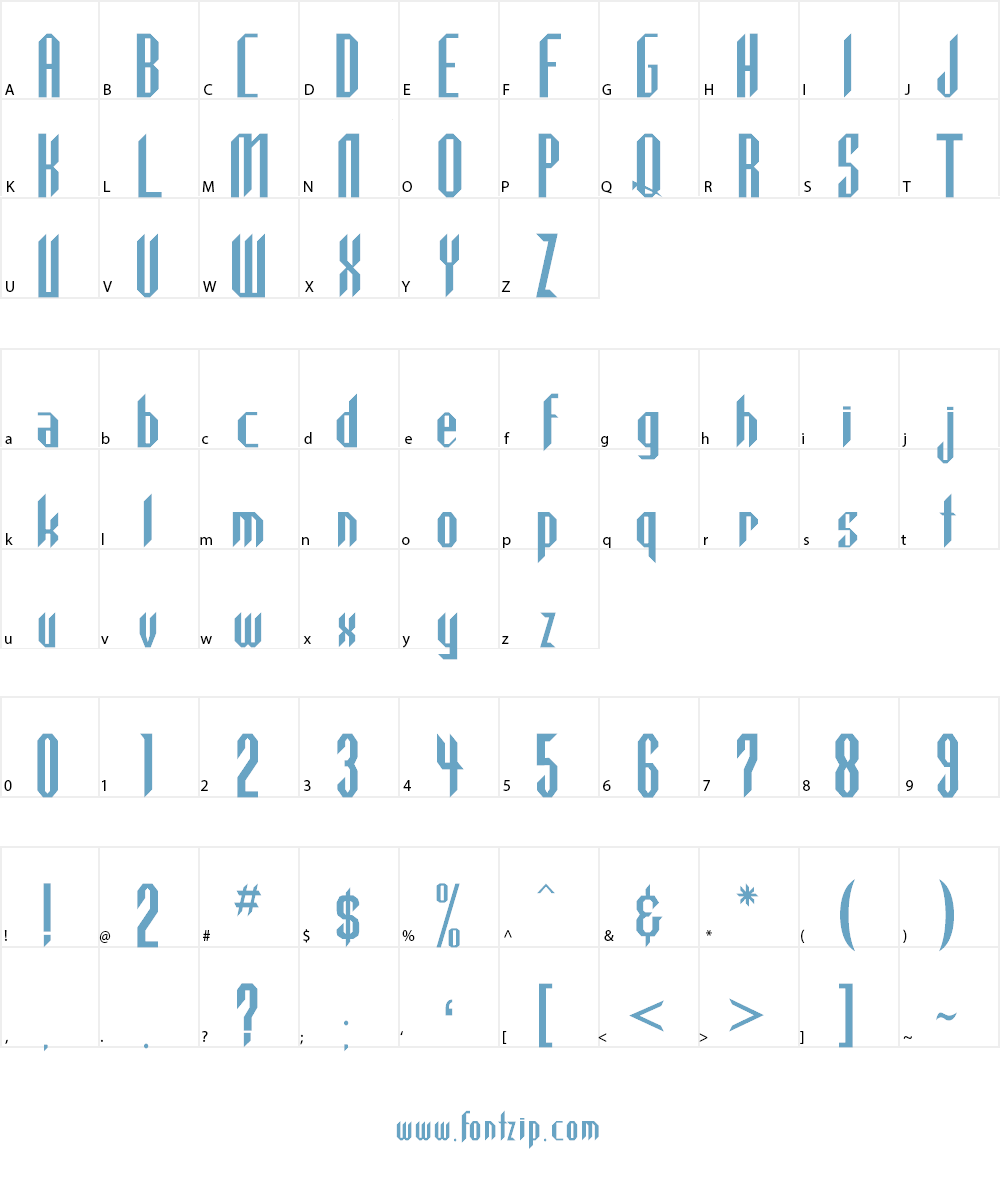
made by beccaelizabeth in 8 hours on the 8th of september 1998.
updated jan 1999 when I realised I hadn't changed the name properly.
Based on the Highlander series credits. Which means I extrapolated
from the words Highlander, Tessa, Richie and Macleod. I could have
made it prettier but this looks like the credits now.